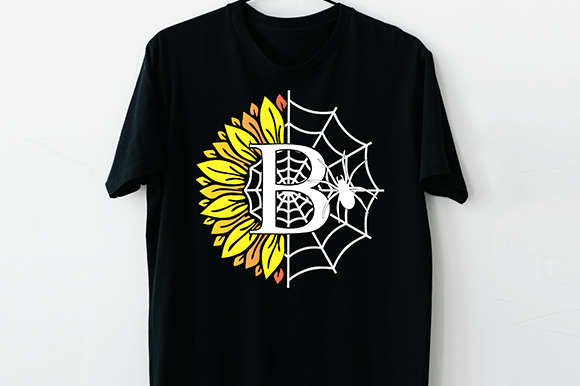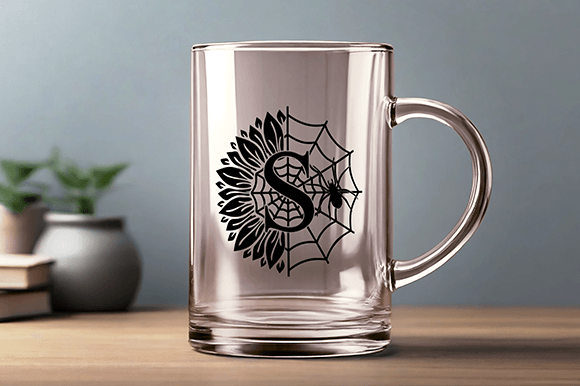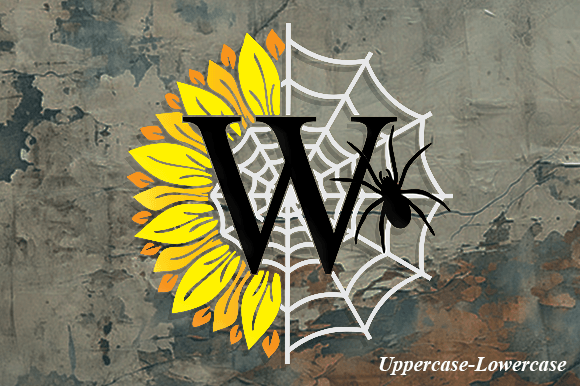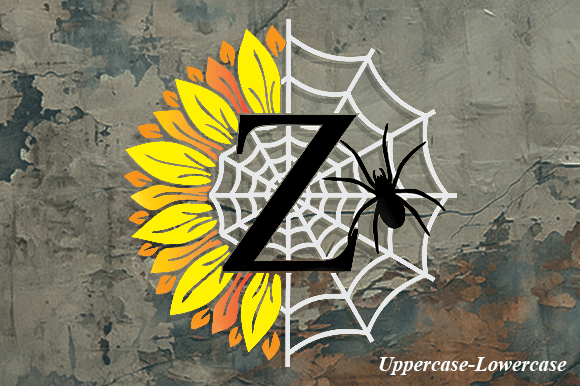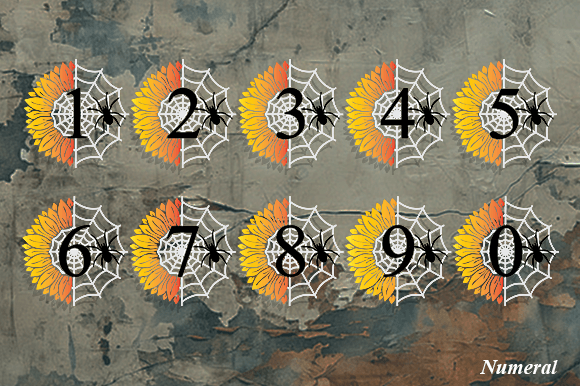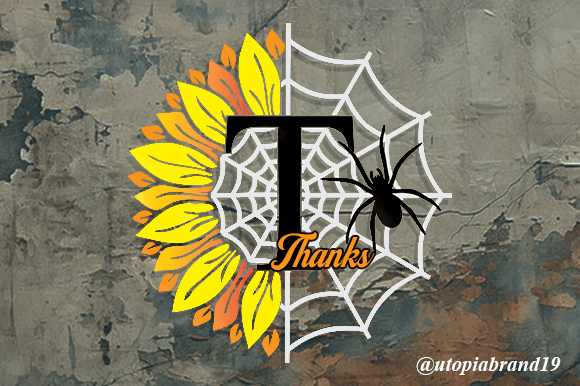
Introducing the Spookiest Font of the Season: Halloween Sunflower Monogram Font
Are you ready to add a touch of spooky elegance to your Halloween designs? Look no further than the Halloween Sunflower Monogram Font! This incredibly unique and decorative font is sure to make your designs stand out from the crowd. In this article, we’ll dive into the details of this amazing font and explore how you can use it to take your Halloween designs to the next level.
What is the Halloween Sunflower Monogram Font?
The Halloween Sunflower Monogram Font is a one-of-a-kind decorative font that combines the warmth of sunflowers with the spookiness of Halloween. The font features intricate designs and details that are sure to add a touch of sophistication to any Halloween design. With its unique blend of playful and eerie elements, this font is perfect for designers and crafters looking to create eye-catching and memorable Halloween-themed projects.
Key Features of the Halloween Sunflower Monogram Font
- Unique and Exclusive Design: The Halloween Sunflower Monogram Font boasts a distinctive design that sets it apart from other fonts. Its intricate details and spooky charm make it perfect for Halloween-themed projects.
- Monogram Style: The font features a monogram style design, making it ideal for creating personalized and customized Halloween decorations, invitations, and other projects.
- Easily Customizable: The font is easily customizable, allowing designers and crafters to adjust the text and design to suit their specific needs.
How to Use the Halloween Sunflower Monogram Font
The Halloween Sunflower Monogram Font can be used in a variety of design applications, including:
- Halloween Invitations: Add a touch of spooky elegance to your Halloween invitations with this unique font.
- Decorative Signs: Create eye-catching decorative signs for your Halloween party or event using this font.
- Customized Decorations: Use the font to create customized Halloween decorations, such as banners, garlands, and more.
- Digital Designs: Incorporate the font into your digital designs, such as social media graphics, blog posts, and more.
Tips and Tricks for Using the Halloween Sunflower Monogram Font
Here are a few tips and tricks to help you get the most out of the Halloween Sunflower Monogram Font:
- Experiment with Different Colors: Try pairing the font with different colors to create a unique and eye-catching design.
- Use it in Combination with Other Fonts: Combine the Halloween Sunflower Monogram Font with other fonts to create a visually interesting design.
- Add Texture and Patterns: Add texture and patterns to your design to give it an extra layer of depth and interest.
The Halloween Sunflower Monogram Font is a unique and versatile font that is sure to add a touch of spooky elegance to any Halloween design. With its intricate details and customizable design, this font is perfect for designers and crafters looking to create eye-catching and memorable Halloween-themed projects. Whether you’re creating invitations, decorations, or digital designs, this font is sure to make your projects stand out from the crowd.